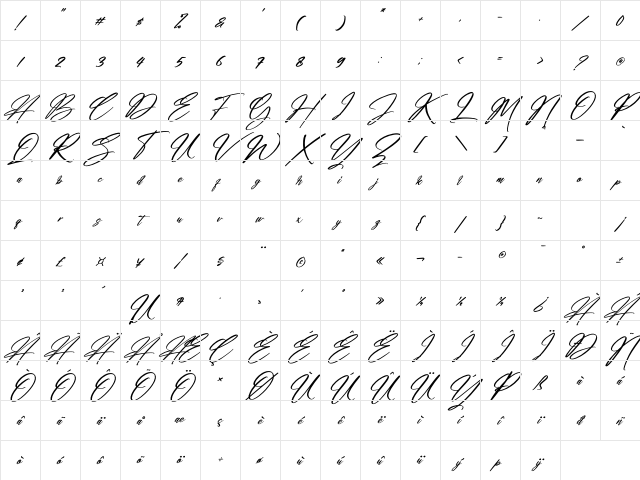
Complete Amsterdam Billionaire Italic glyph index. Displaying only characters natively supported by Amsterdam Billionaire Italic font.
Amsterdam Billionaire is a composed and adaptable typeface that performs quietly and consistently across a wide range of design contexts. The slanted form adds forward momentum and visual energy.
Pro Tip: Use Amsterdam Billionaire for emphasis, pull quotes, and subheadings where its slanted energy can add rhythm to the layout.